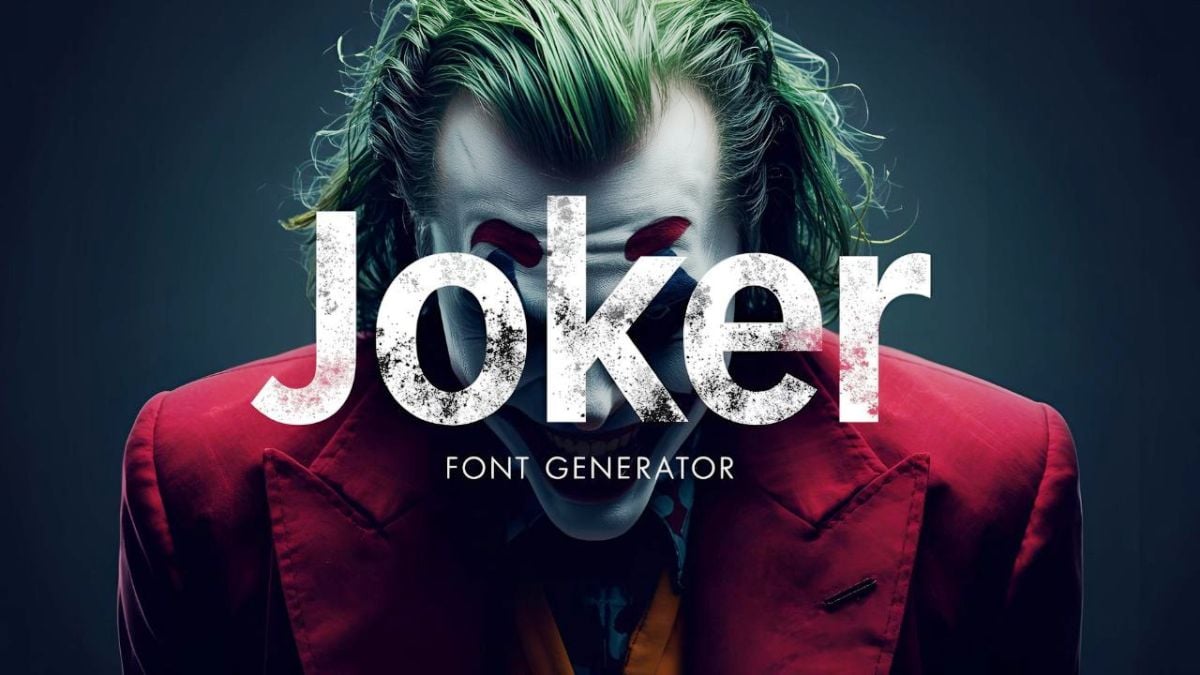
🤡 Joker Font Generator 🤡
🤡 Create Insane clown text effects for chaos! 🤡
Get the insane clown font – the perfect chaos typography for Joker designs. Perfect for Batman fans and madness-themed content.
Gothic Joker font captures the insane clown essence of chaos and madness! This Joker typography brings authentic Gotham character to your text designs. Our Joker Font Generator lets you create clown text using the authentic Gothic Joker font. Perfect for chaos designs, madness projects, and Joker-themed content.
Experience the insanity of Gotham with our clown font that adds madness and chaos to your typography!
🎭 Madness Alternatives
🎬 Movie Projects
Perfect for Joker posters, chaos graphics, madness designs, merchandise, and Gotham-themed projects.